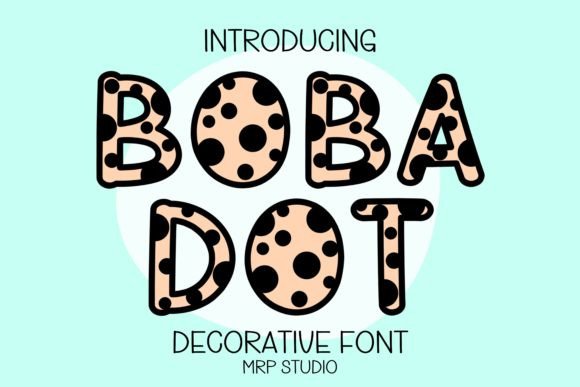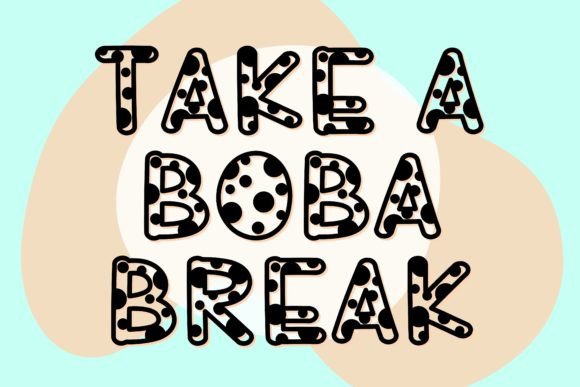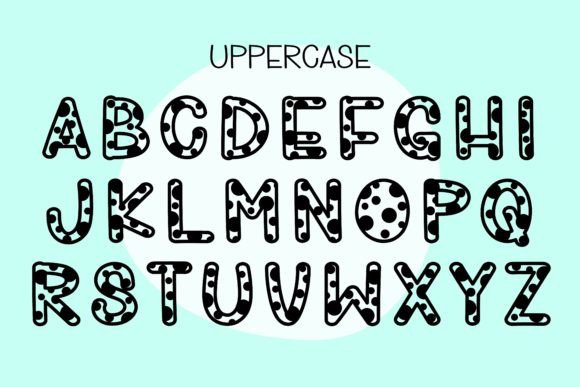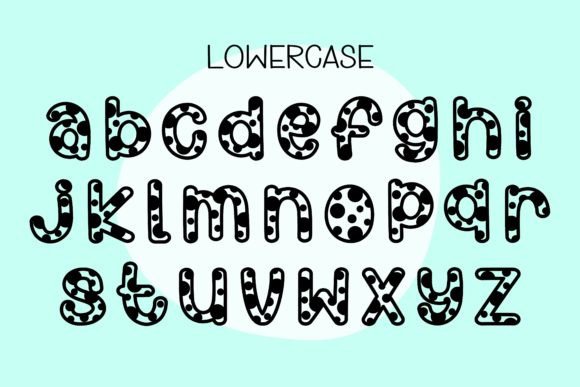
Boba Dot Font: A Playful & Cute Decorative Font for Cricut Crafts
About the Boba Dot Font
Add a touch of class to your work with the Boba Dot Font, a truly exceptional typeface. Boba Dot is a cute and adorable decorative font. No matter the topic, this font will be an incredible asset to your fonts’ library, as it has the potential to elevate any creation.
Boba Dot’s playful, rounded forms make it ideal for children’s books, branding for sweet treats or cafes, and playful social media graphics. It excels in short headlines, logos, and packaging where its charming character shines. However, its decorative nature makes it unsuitable for body text or UI elements requiring high readability.
Consider pairing Boba Dot with a clean sans-serif like Open Sans for a balanced contrast, or a slightly more whimsical script font for a cohesive, playful feel. A geometric sans-serif could also offer a modern counterpoint, creating visual interest without overwhelming the design.
Boba Dot projects a friendly, approachable personality, making it perfect for brands focused on youthfulness and approachability. Avoid using it in contexts requiring seriousness or sophistication.
Boba Dot Font Usage Examples
Boba Dot Font Example